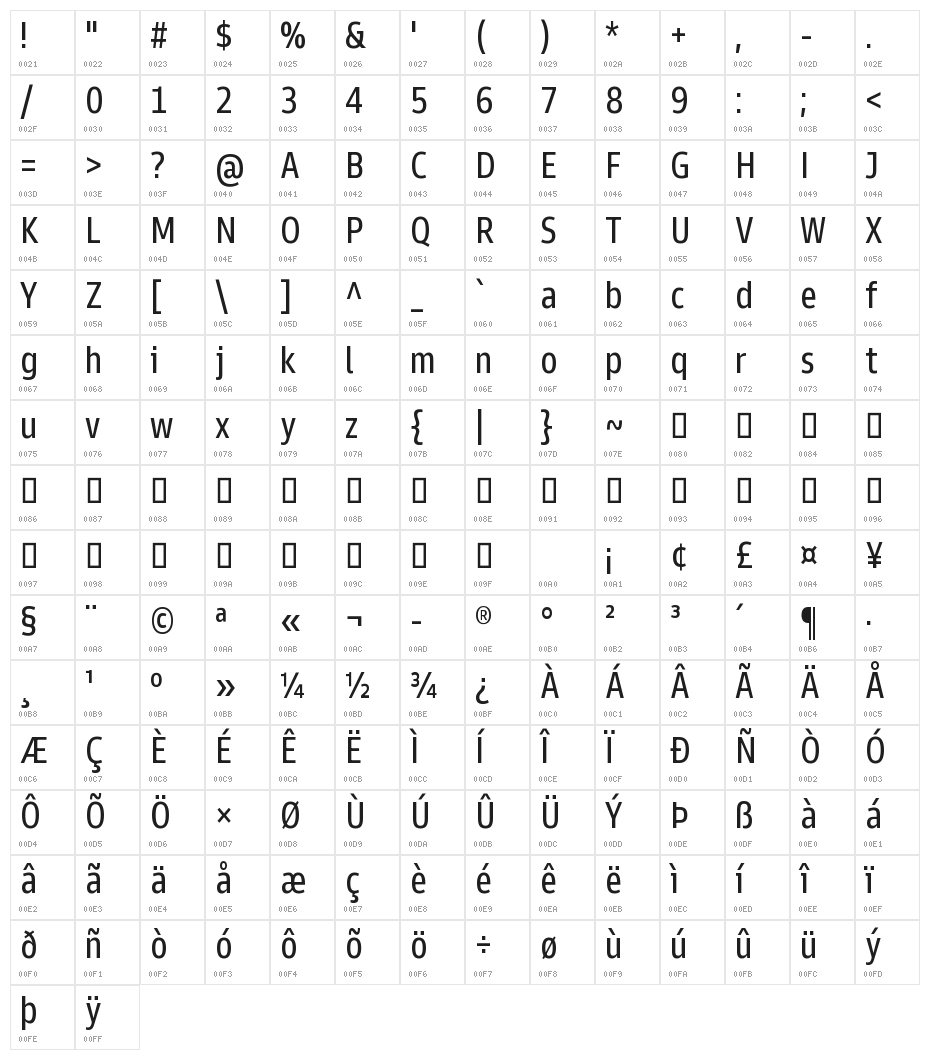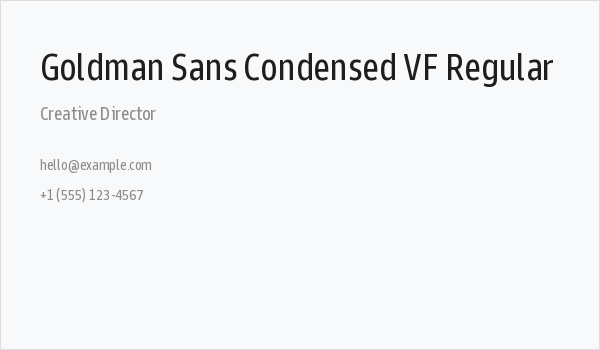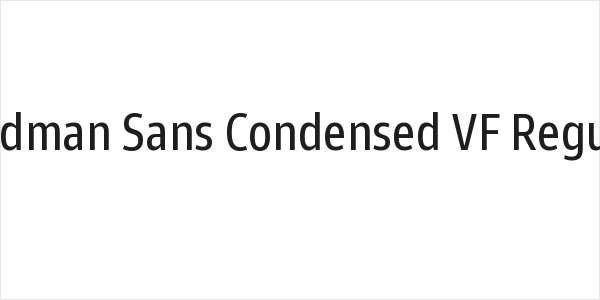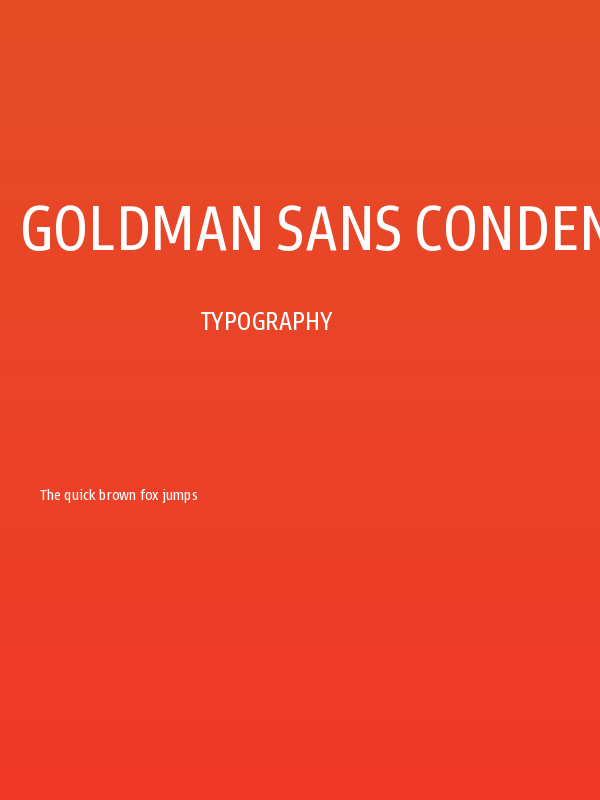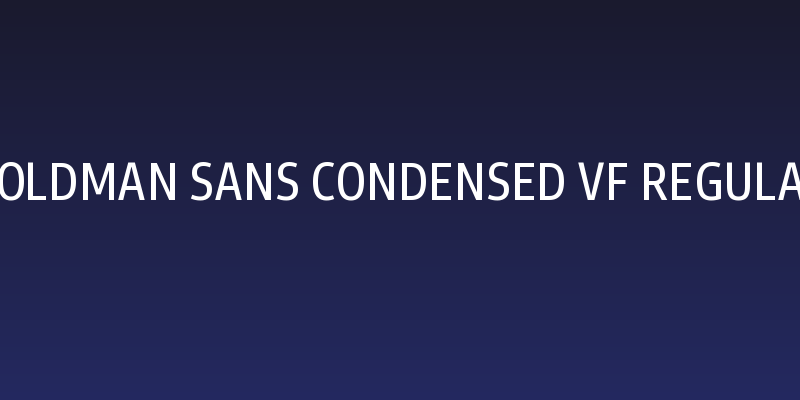
Goldman Sans Condensed VF Regular Font
Goldman Sans Condensed VF Regular Description
This font features a clean, modern sans-serif style with a condensed width, making it ideal for space-efficient text. The characters are evenly weighted, providing a balanced and uniform appearance. The uppercase and lowercase letters are well-proportioned, with a slight geometric influence that enhances readability. The numerals are clear and distinct, ensuring easy differentiation. Special characters are included, maintaining the font's cohesive design. The overall look is sleek and professional, suitable for various design applications.
Proposed ProjectsIdeal for corporate branding, editorial design, web interfaces, and signage where space is limited.